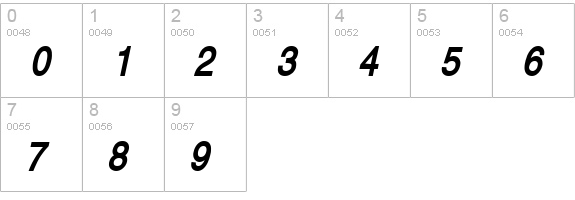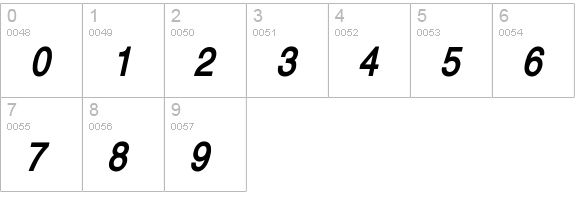
Alps-Condensed Bold Italic Font Details
Alps-Condensed Bold Italic is a strong, high-contrast, condensed-width, italic variant in the Alps typeface family \xE2\x80\x94 well suited to headlines, attention-grabbing titles, and strong calls-to-action.
Alps-Condensed Bold Italic font is a stylish and modern typeface that exudes confidence and sophistication. Its bold and italic design adds a touch of flair to any project, making it perfect for headlines, titles, and branding materials. The condensed style allows for efficient use of space while maintaining readability. This versatile font is ideal for a wide range of design projects, from posters and advertisements to web design and packaging. Whether you're crafting a sleek and professional look or aiming for a bold and edgy aesthetic, Alps-Condensed Bold Italic font has you covered. Best of all, this font is available for free download at FontsMarket.com. Simply head over to the website and start using this eye-catching typeface in your projects today!